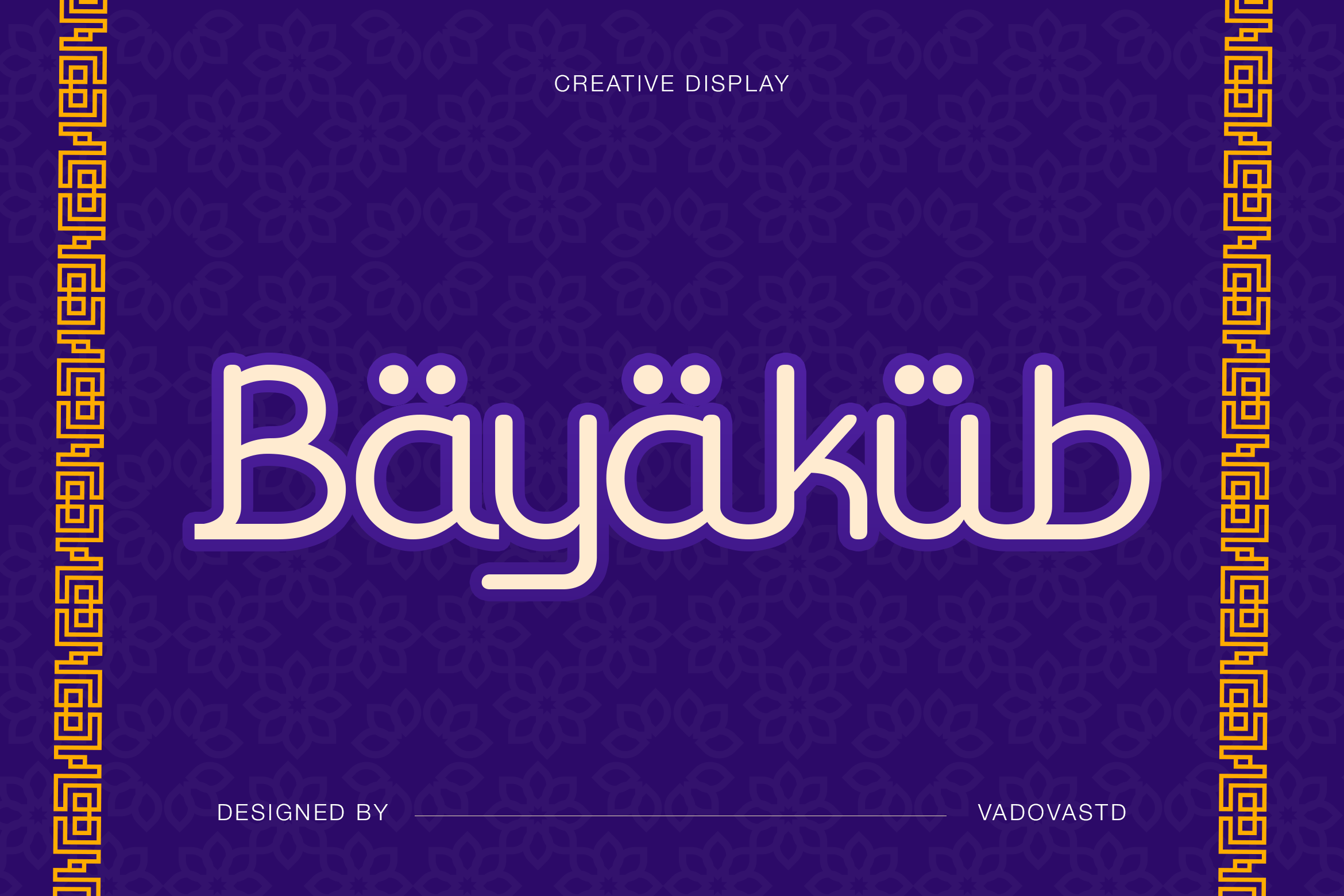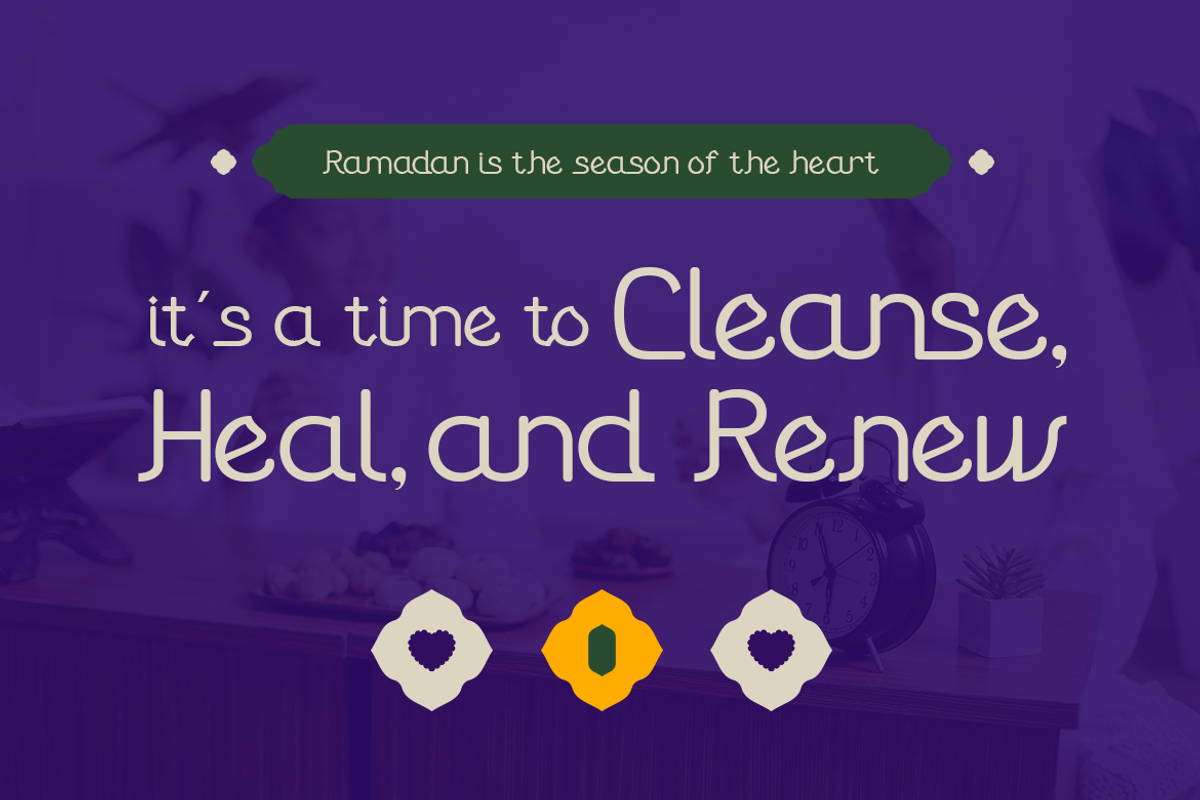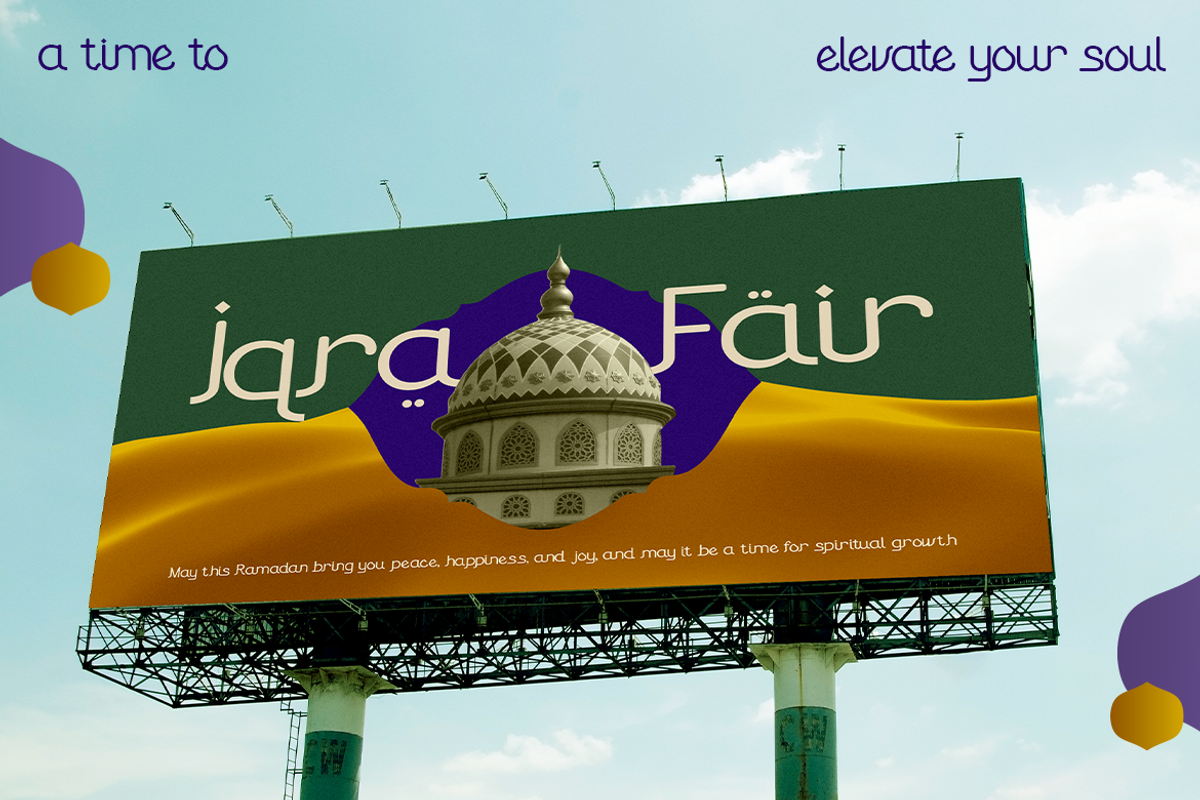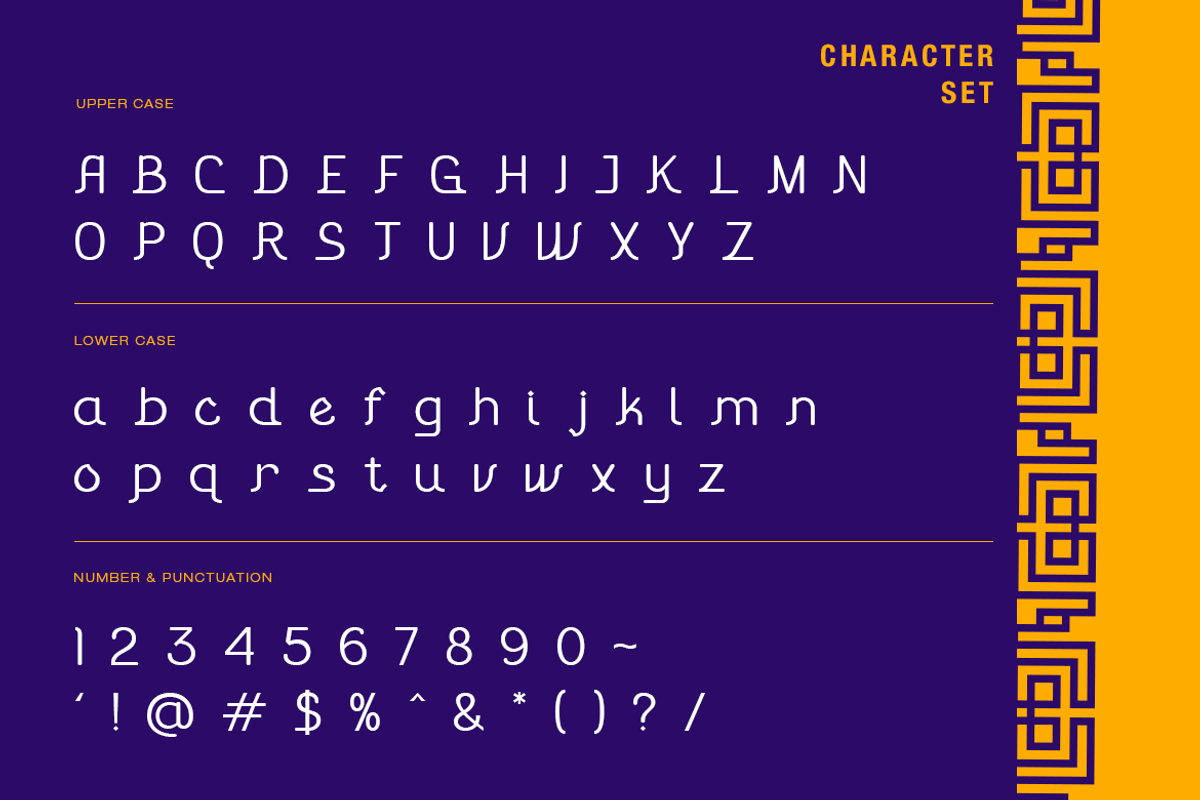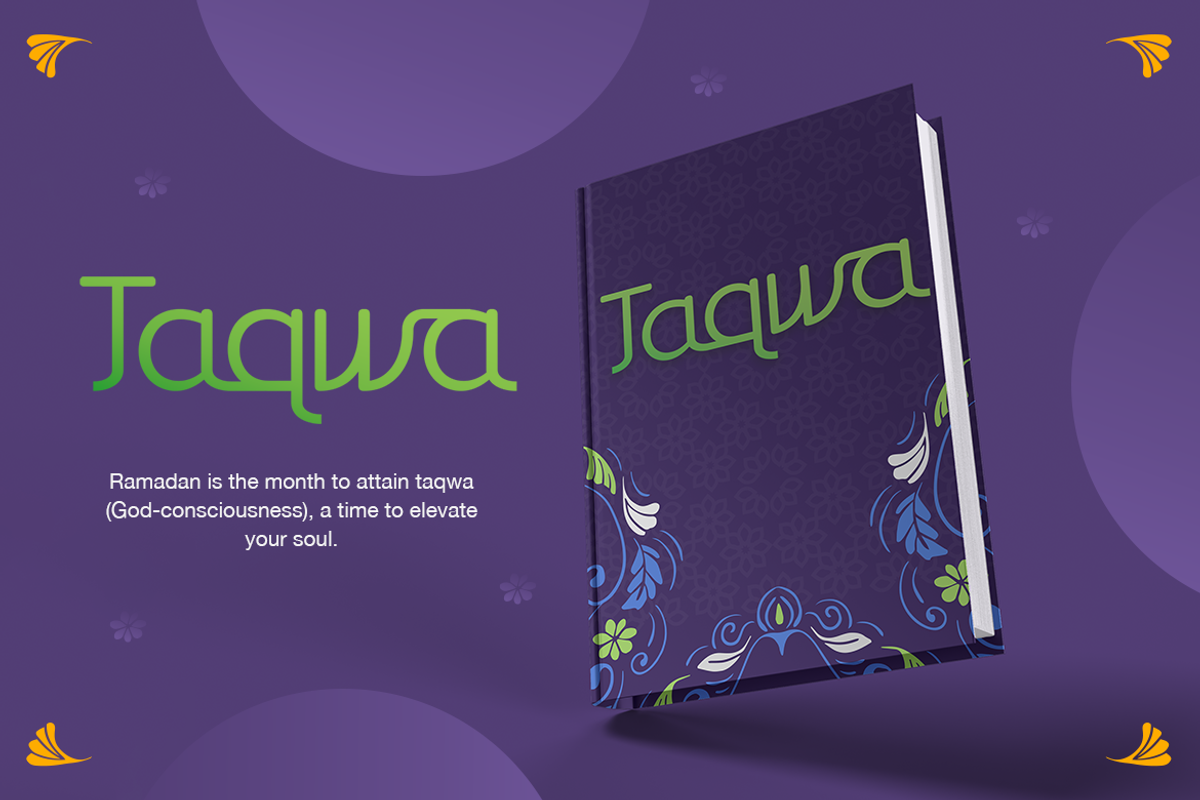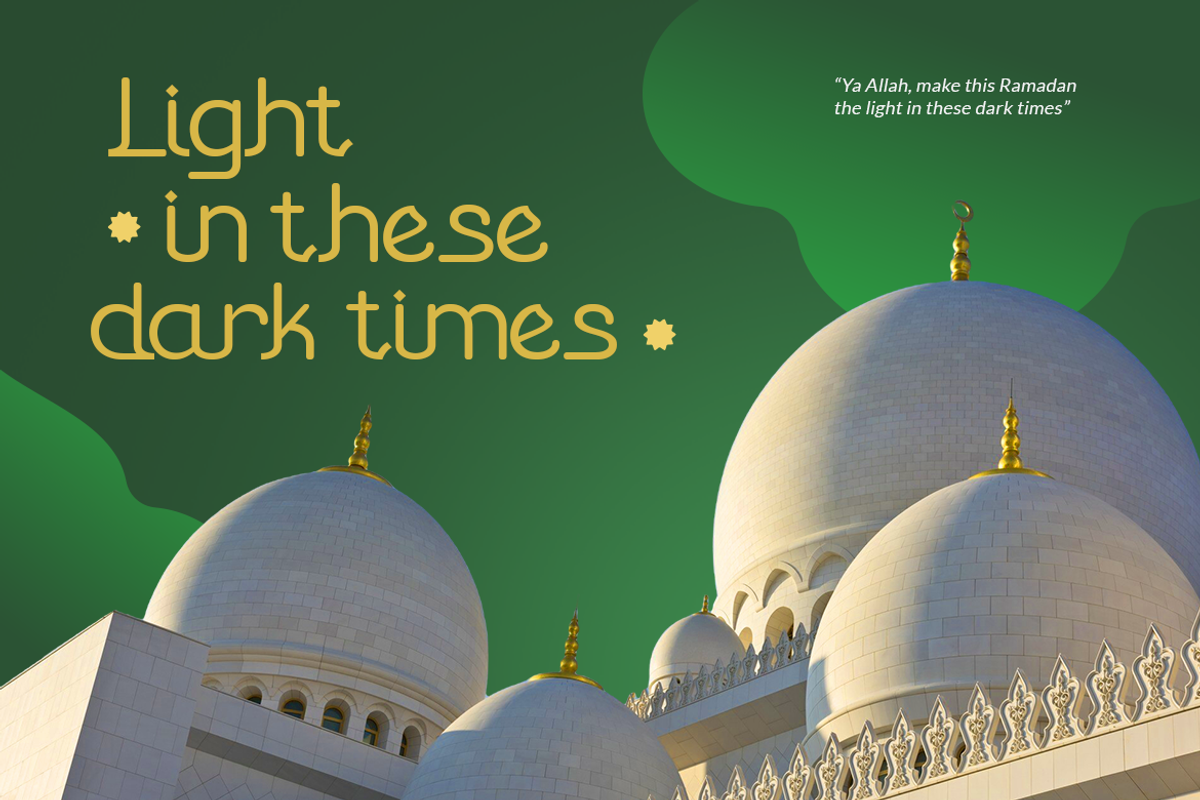
Bayakub Creative Display Font
Bayakub is a creative Islamic display font inspired by geometric Arabic forms and contemporary typographic structure. The characters feature rounded strokes, stylized dots, and ornamental rhythm that reflect Middle Eastern visual culture while remaining highly readable in Latin composition. This package includes uppercase, lowercase, numbers, punctuation, and decorative glyph details suitable for expressive headline typography.
Bayakub reflects Islamic geometric aesthetics and contemporary display typography, making it relevant for faith-inspired visual communication, seasonal campaigns, and culturally themed branding. It works effectively in Ramadan and Eid promotions, mosque or community event posters, editorial headlines, packaging, and social media graphics where a decorative Islamic tone is desired.
- Islamic-inspired geometric construction with stylized Arabic rhythm
- Rounded strokes and soft curves creating a friendly ornamental tone
- Distinctive dot accents and terminals reflecting Middle Eastern character
- Balanced monoline weight for clear decorative display presence
- Open spacing that maintains readability in headline compositions
- Ramadan and Eid greeting designs with cultural decorative tone
- Islamic event posters, banners, and social media visuals
- Mosque branding and community campaign materials
- Halal product packaging and Middle Eastern themed labels
- Faith-based quotes, invitations, and spiritual editorial layouts